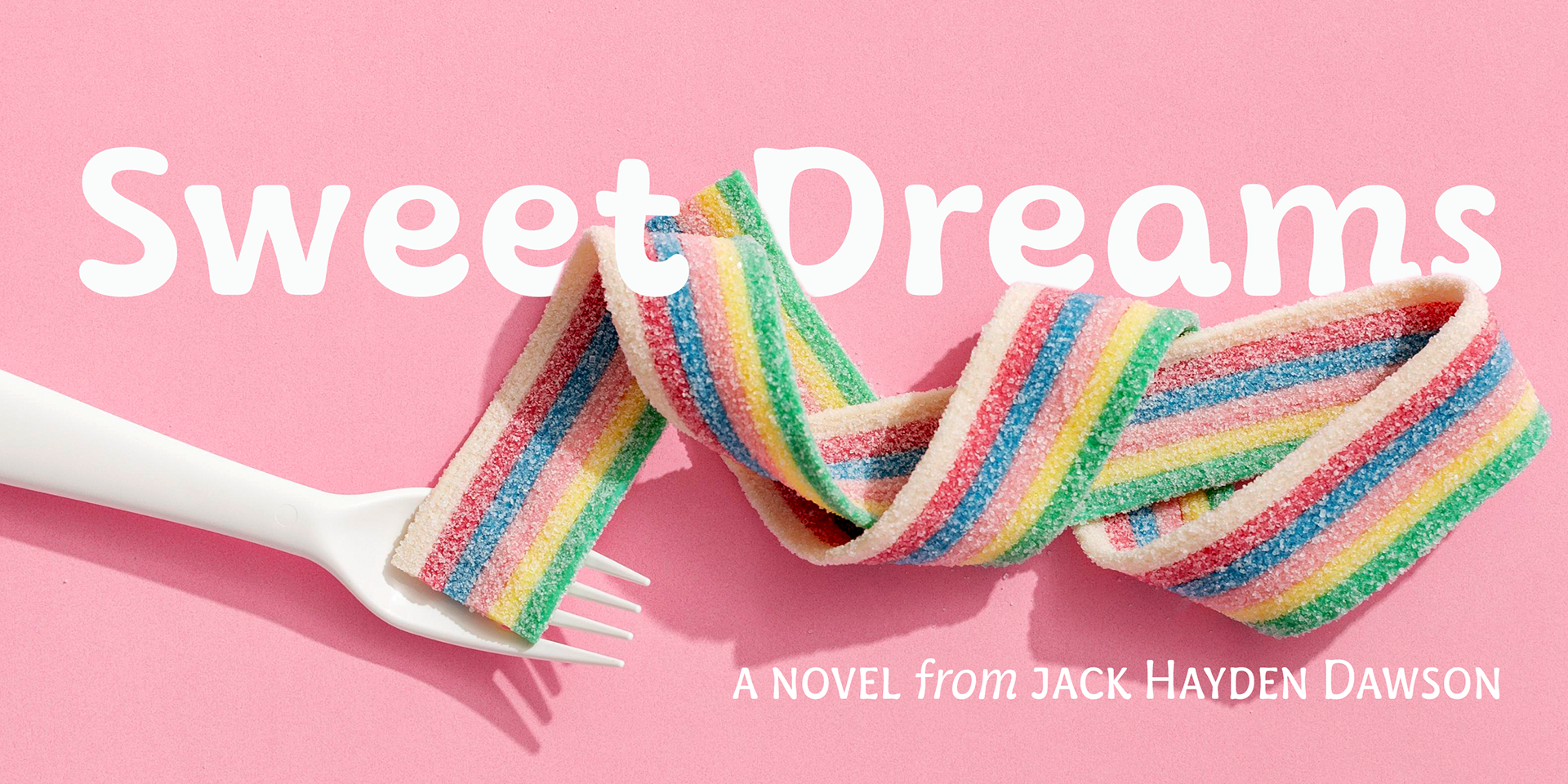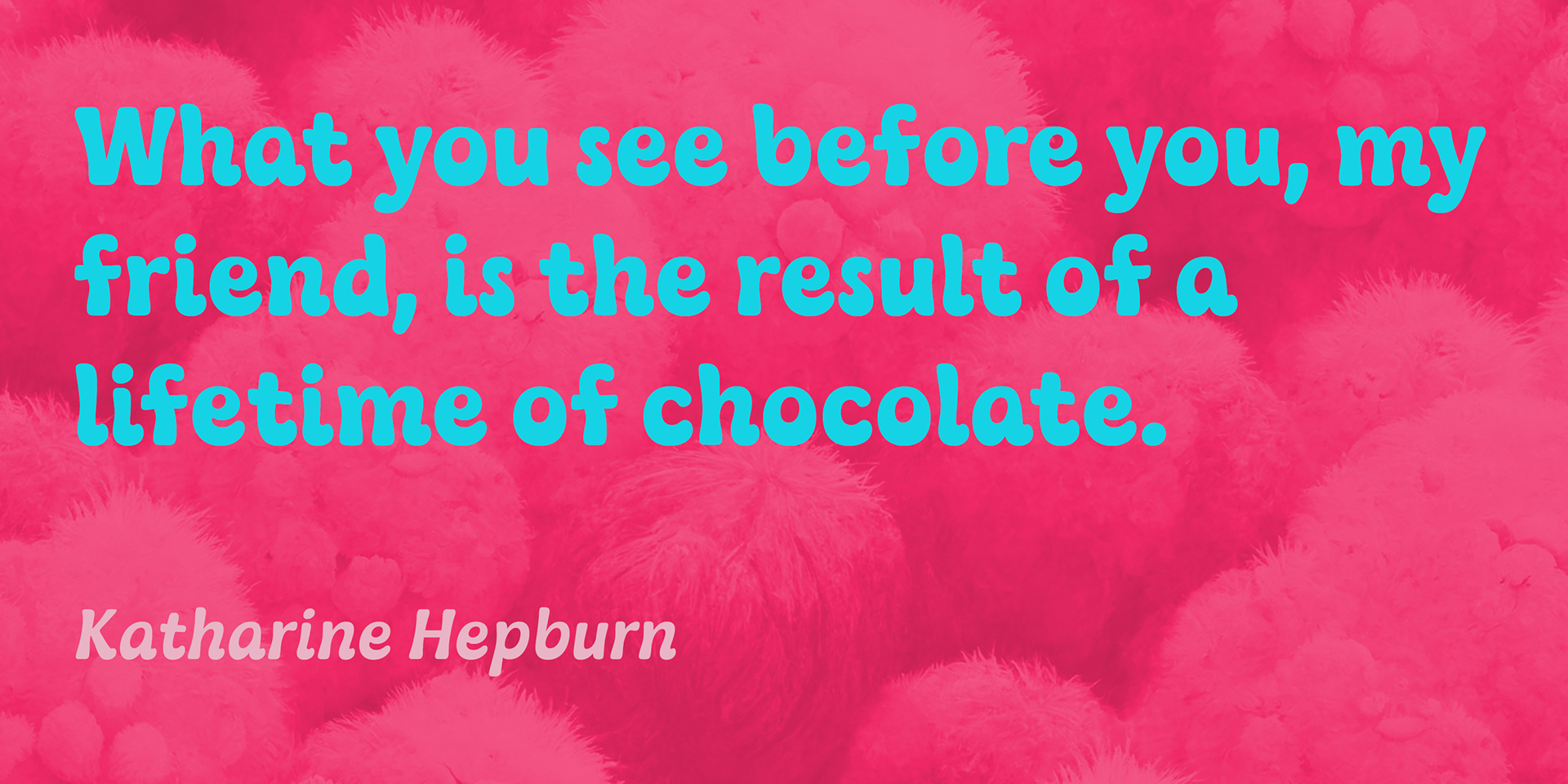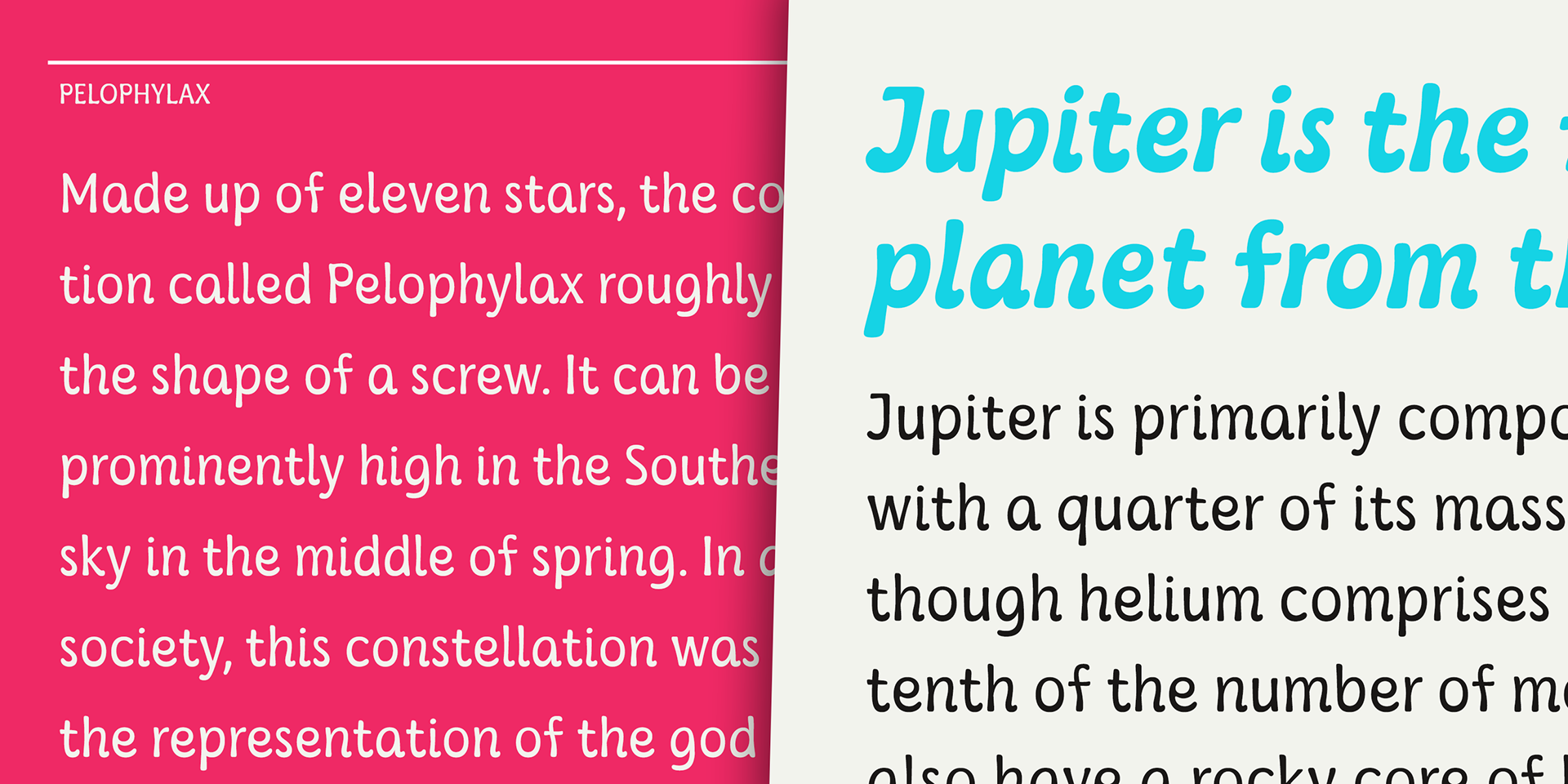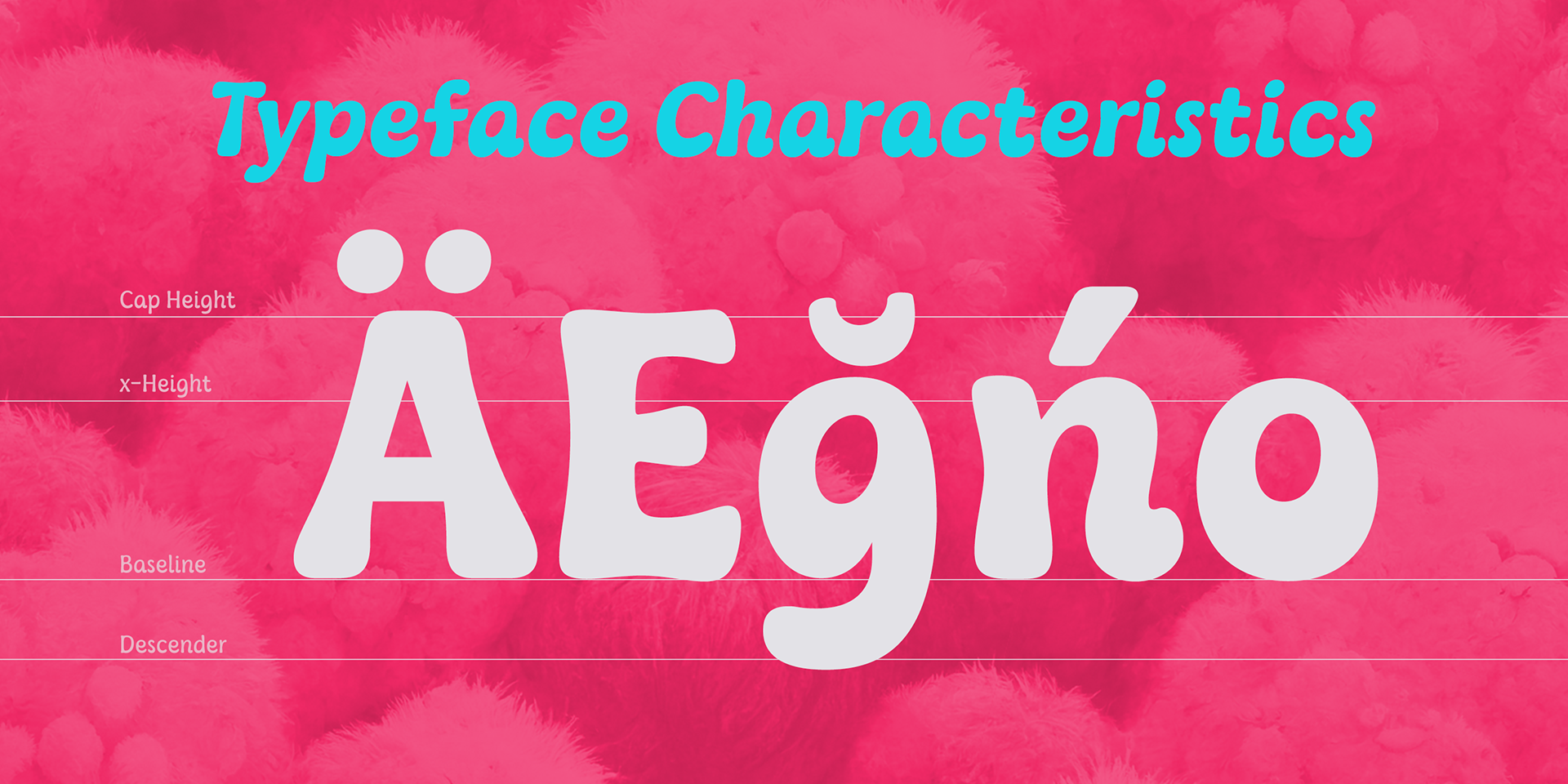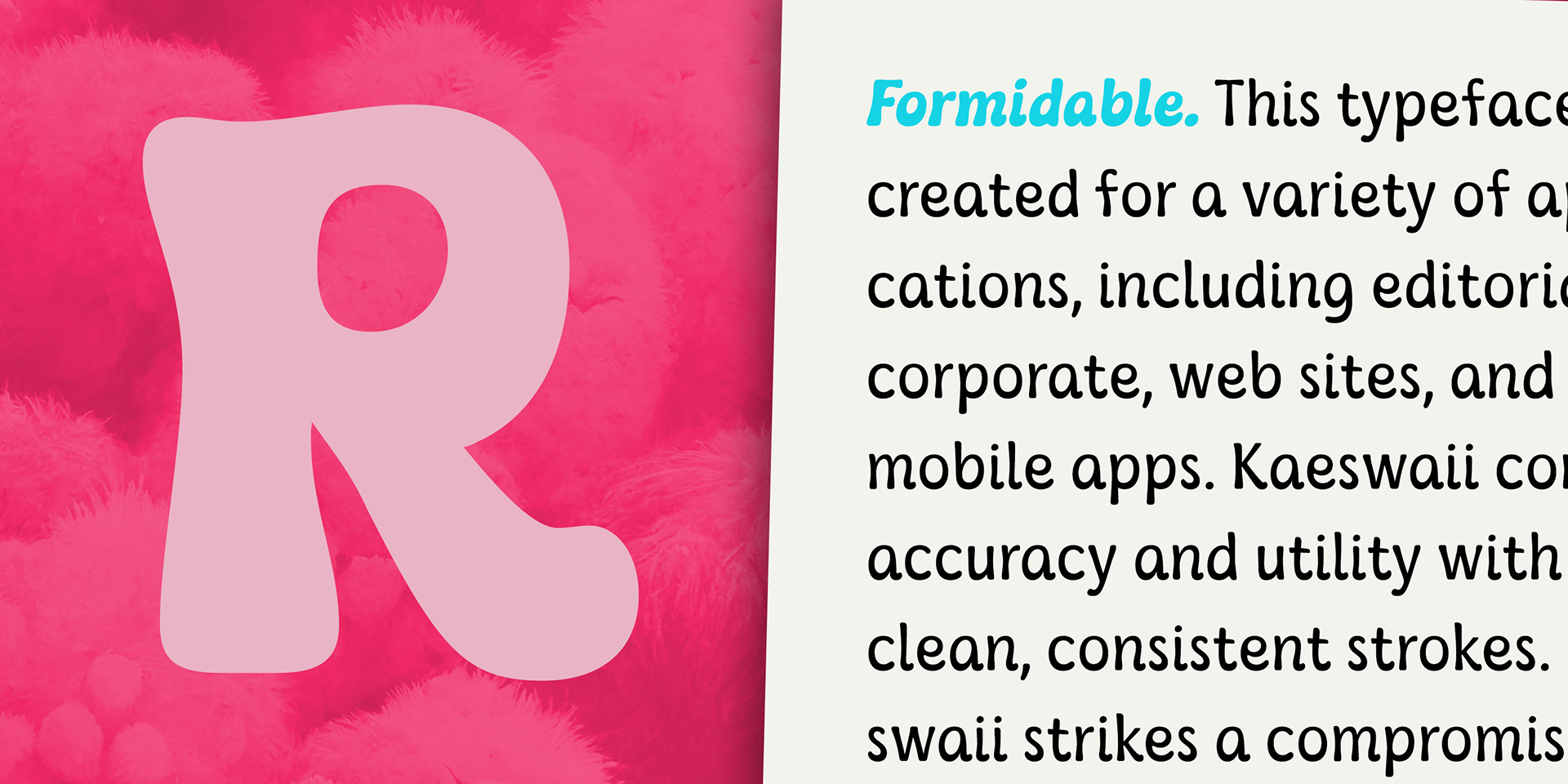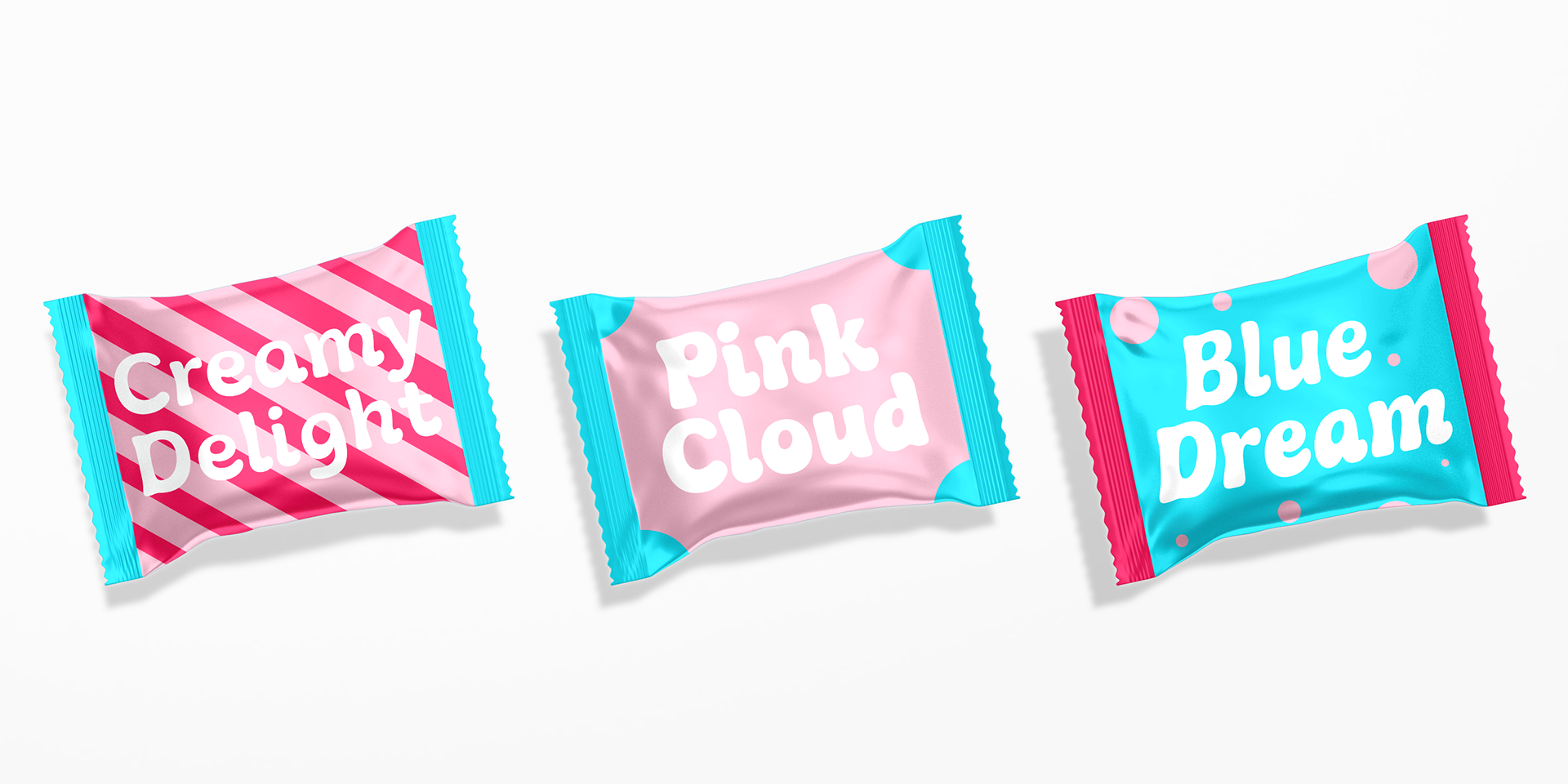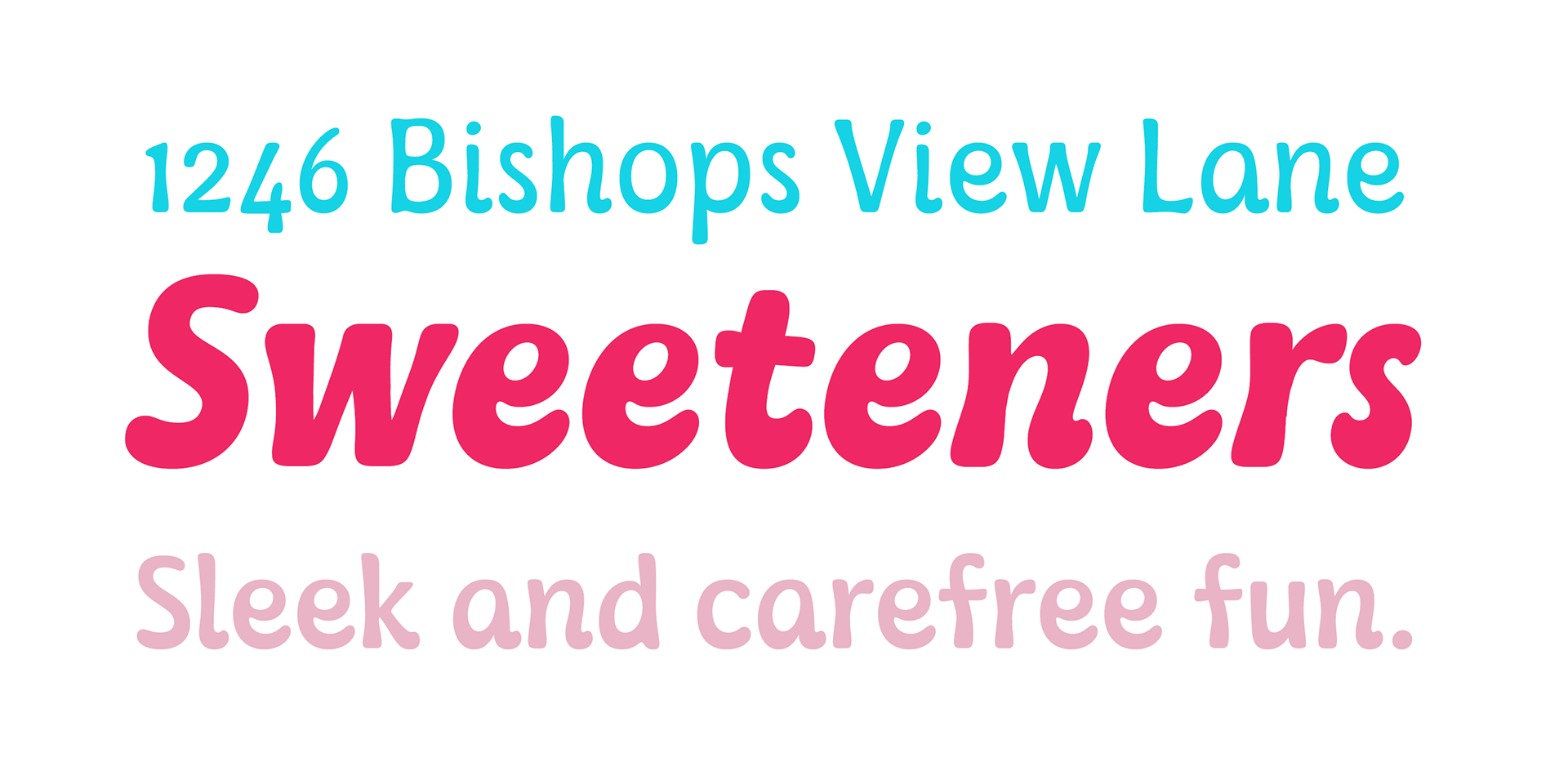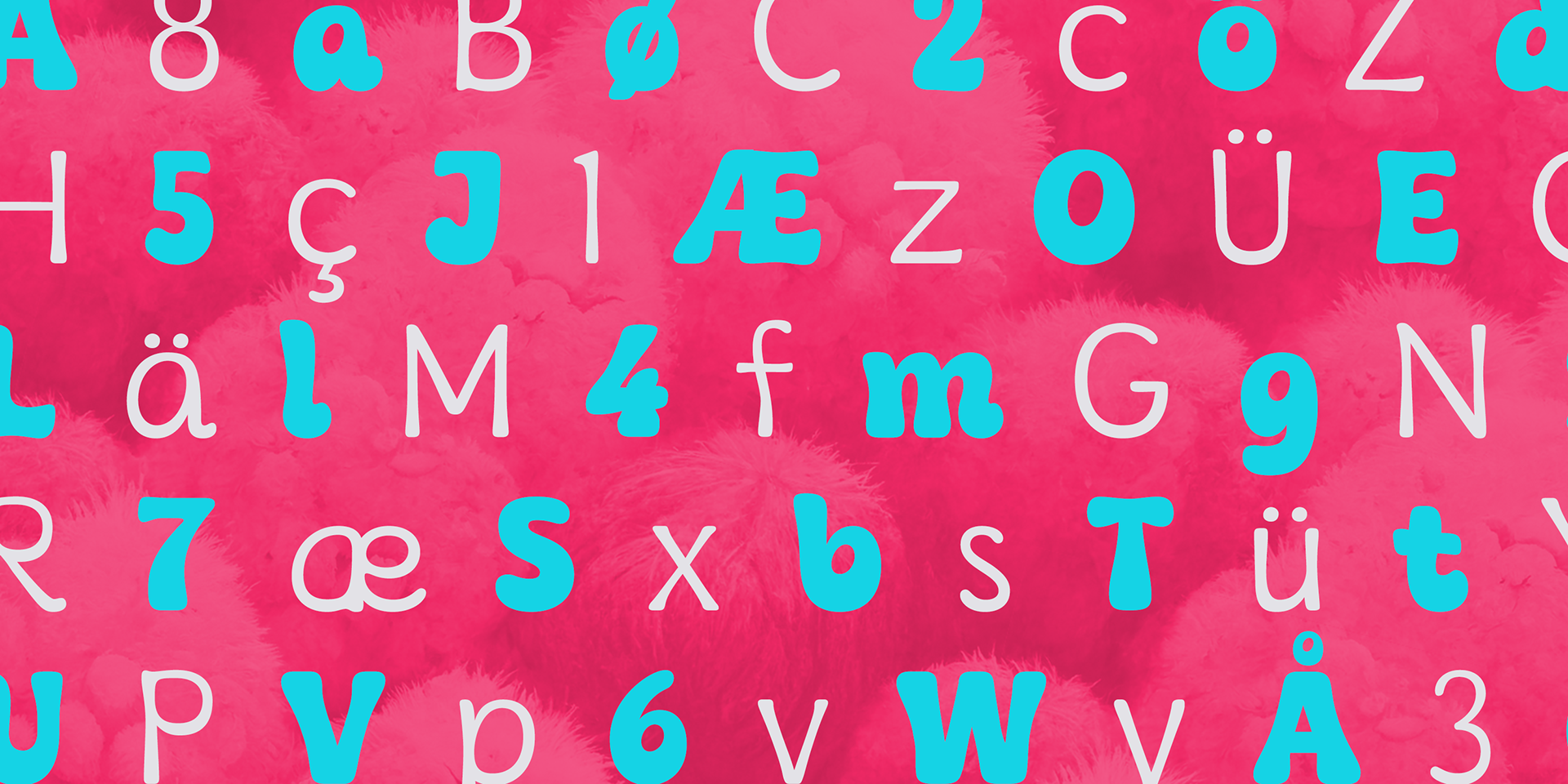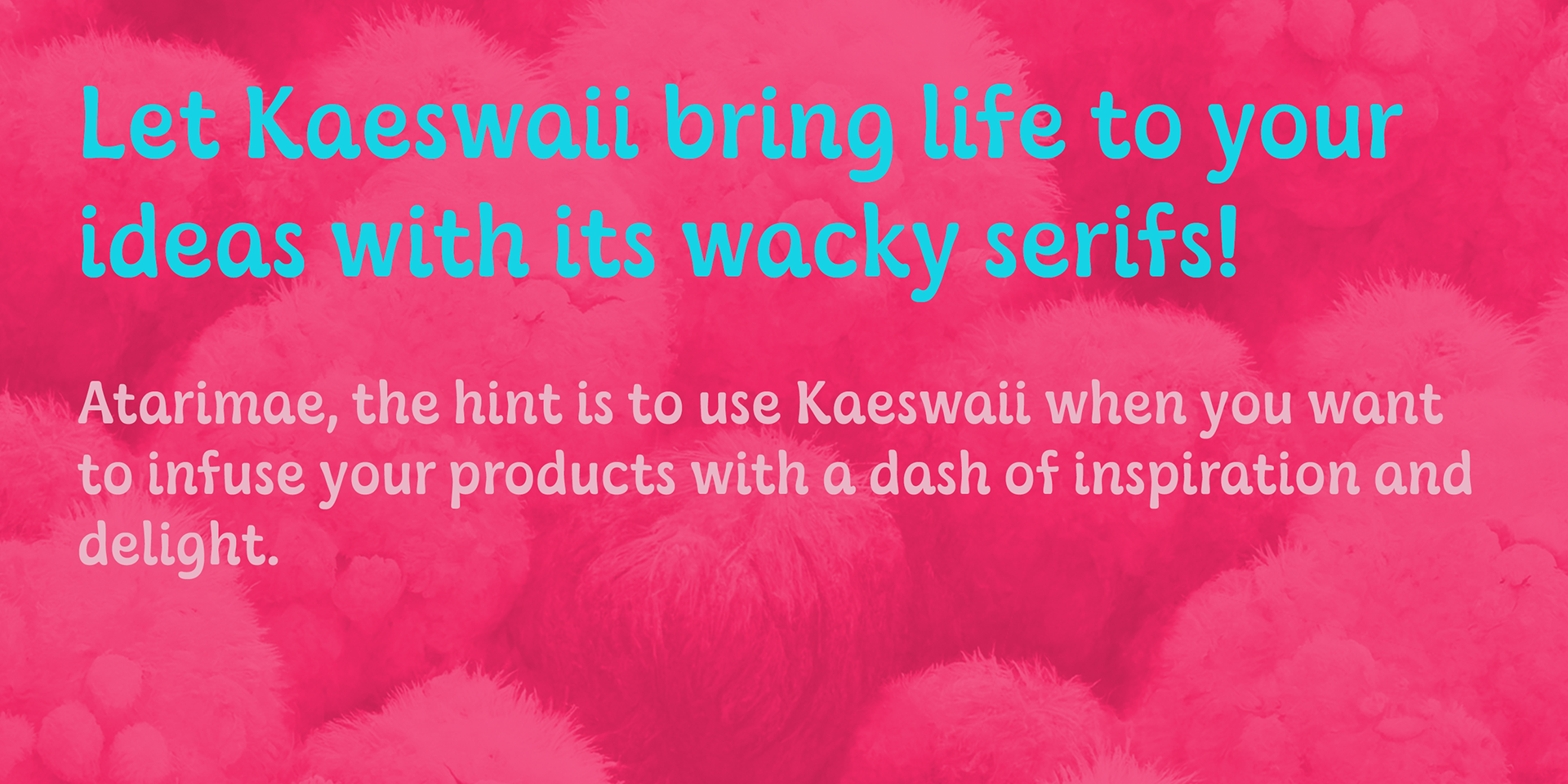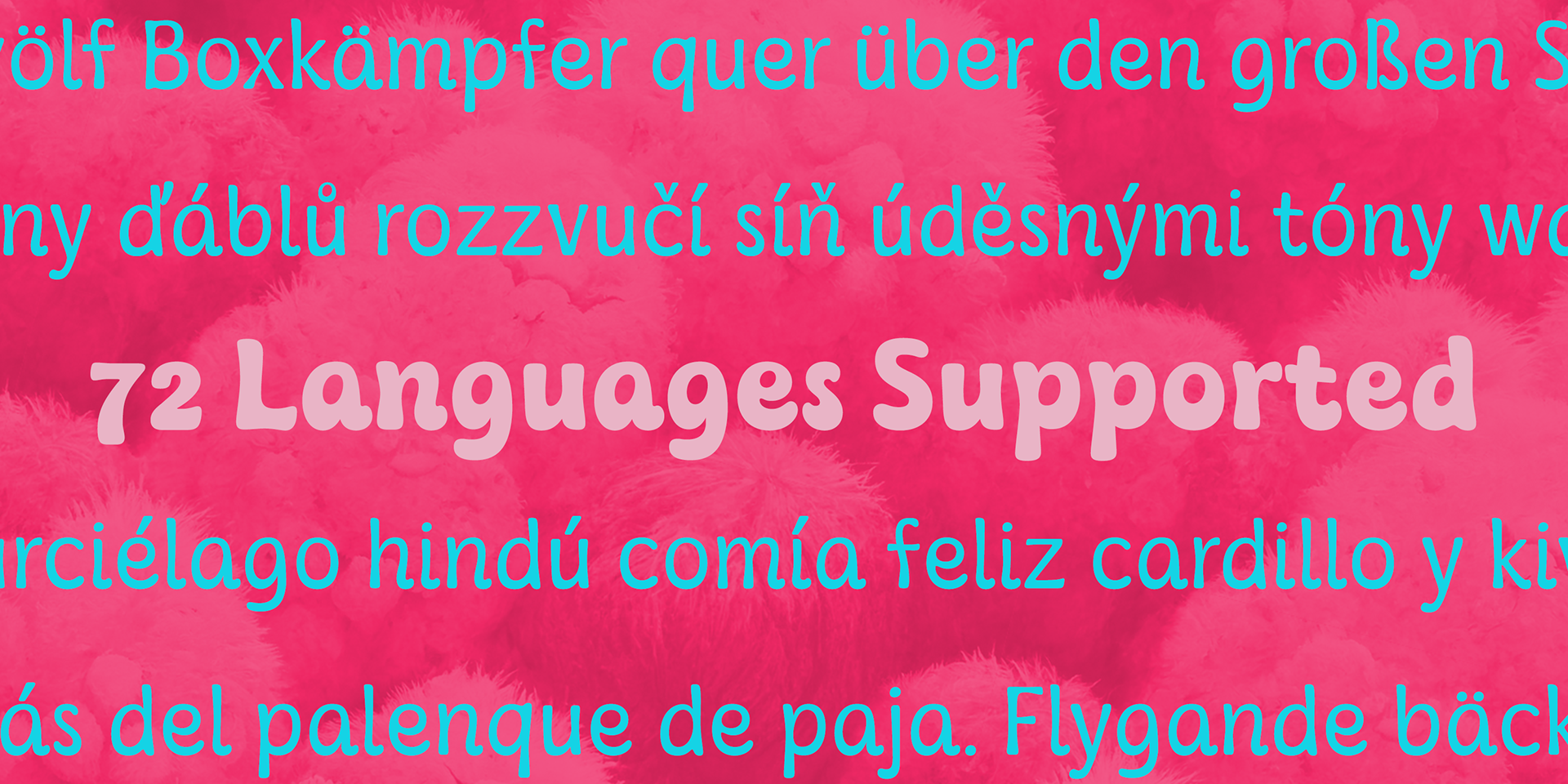
Introducing Kaeswaii, a font that is ideal for anyone wishing to infuse their creations with a dash of inspiration and delight. It's ideal for producing fresh designs that will stand out thanks to its unique horizontal contrast. It has a joyful feel on account of its tall x-height, and its playful terminals give it a funky touch.
Kaeswaii has enough variety to help your project look better than the rest with forty-eight different styles. Select from nine weights and italics for the standard, condensed, and extended styles. It has rounded corners and a luscious texture and a squishy, gloopy vibe.
Atarimae, the hint is to use Kaeswaii when you want to infuse your products with a dash of inspiration and delight. It's ideal for producing fresh designs. Put a playful spin on your work with the unique personality of Kaeswaii's rounded terminals. Let Kaeswaii bring life to your ideas!